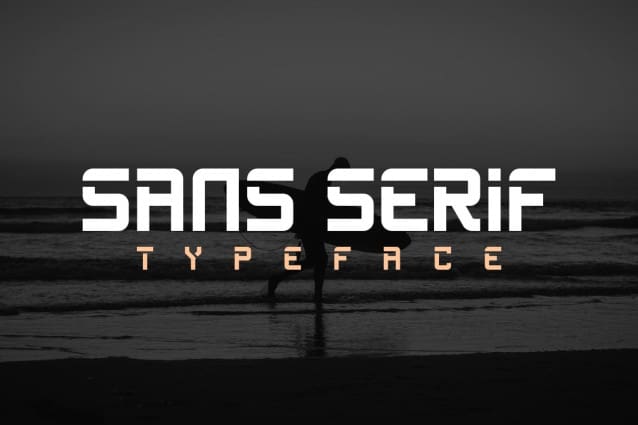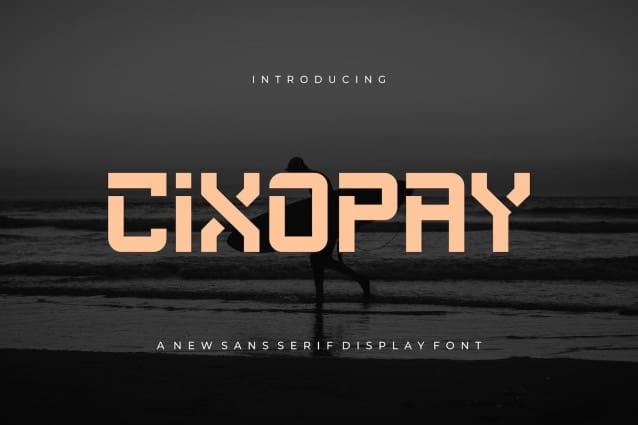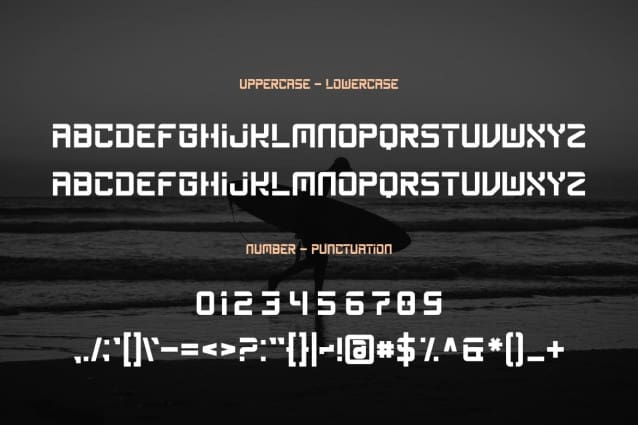
Cixopay Display Font
Cixopay Display Font is a bold and modern display font. ideal for attention-grabbing headlines, logos, and diverse design projects.